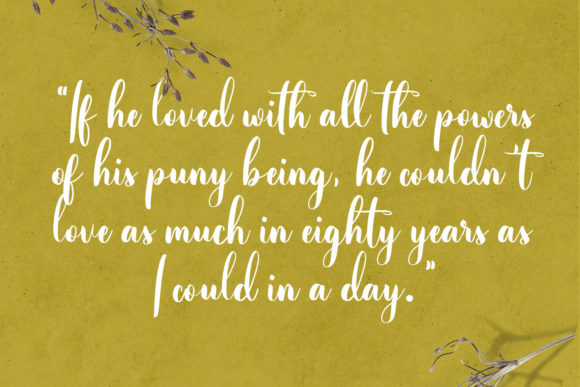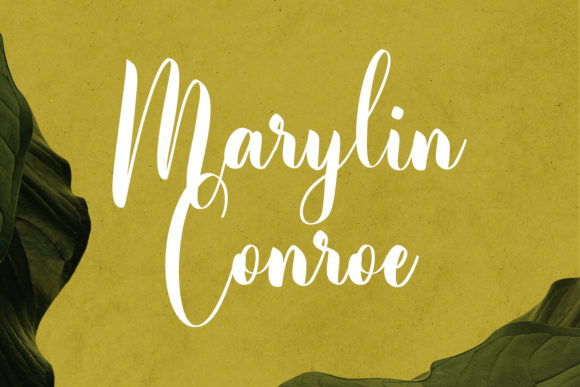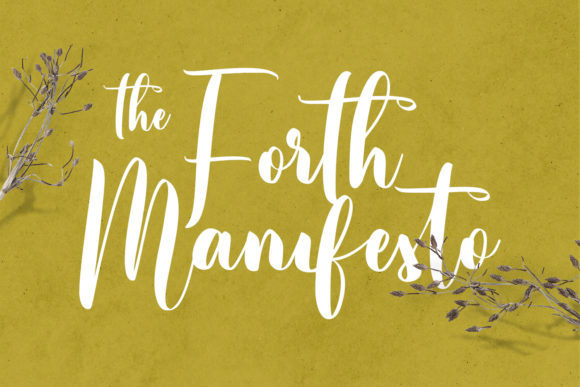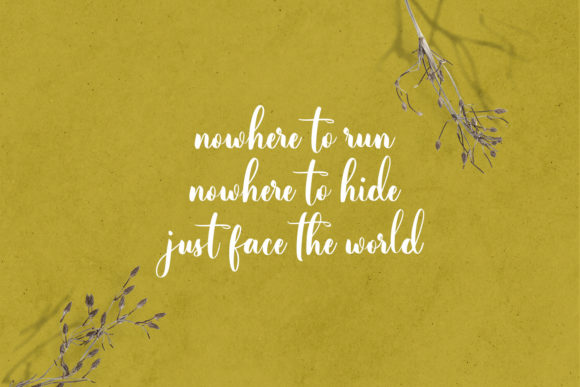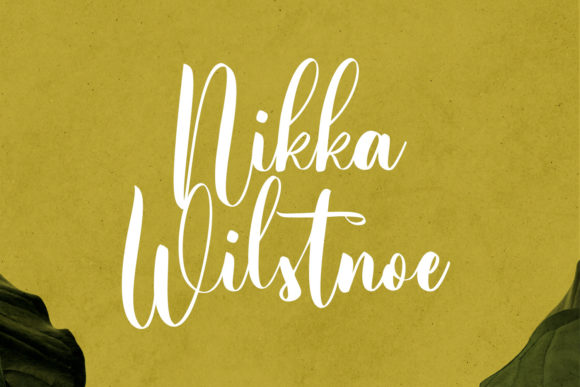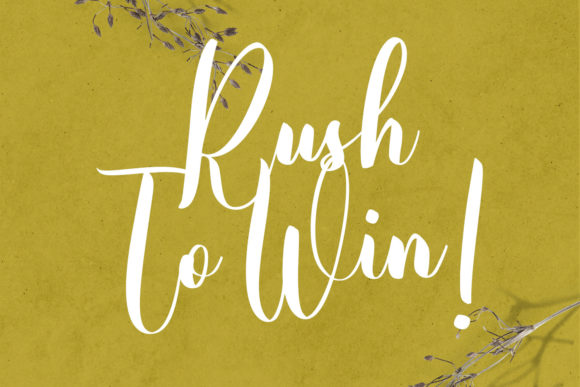
Introduction to Olly Vetta Font
Remember that moment when you finally nailed the perfect design for your creative project? The one that made all your hard work worth it and left you beaming with pride? For designers, those moments are what drive us to keep pushing the boundaries of our craft. And sometimes, all it takes is the right font to take our designs to the next level.
Enter the Olly Vetta Font, a modern script font that’s about to become your new go-to design resource. With its high contrast strokes, fun characters, and ligatures, this font is sure to add a touch of personality to any project. And the best part? You can download it for free, complete with a transparent background, making it easy to incorporate into your designs.
Whether you’re a seasoned pro or just starting out, the Olly Vetta Font is a high-quality addition to any designer’s toolkit. So why settle for a generic font when you can have a font that truly stands out? Let’s dive in and explore the world of Olly Vetta Font.
Key Features of Olly Vetta Font
- High-quality design resource perfect for creative projects, offering a unique and stylish look.
- Unique characteristics include elegant and modern typography, making it suitable for a wide range of creative projects.
- Designed to be versatile, allowing designers to use it as a primary font or as an accent font to add visual interest.
Honest Review: Olly Vetta Font
As a designer, I’m always on the lookout for high-quality design resources to elevate my creative projects. Recently, I stumbled upon the Olly Vetta Font, and I’m excited to share my honest review with you.
The Olly Vetta Font is a beautiful, elegant script font that’s perfect for adding a touch of sophistication to your designs. It’s a free download, which is always a bonus! One of the standout features of this font is its transparent background, making it incredibly versatile and easy to use.
Here are some things that work well with the Olly Vetta Font:
- ✨ Elegant script font that adds a touch of sophistication
- ✨ Transparent background for easy use
- ⚠️ Limited font styles available (only script)
- ⚠️ May not be suitable for bold, loud designs
Overall, I’m impressed with the Olly Vetta Font. It’s a great design resource that’s perfect for adding a touch of elegance to your creative projects. While it may have some limitations, it’s definitely worth checking out if you’re looking for a high-quality script font.
How to Use Olly Vetta Font
The Olly Vetta Font is a versatile design resource that can elevate your creative project to the next level. With its high-quality design and transparent background, this font is perfect for various applications.
Tips for Getting the Most Out of Olly Vetta Font
Experiment with different font sizes, colors, and combinations to create unique and eye-catching designs. Use the Olly Vetta Font for headings and titles to add a professional touch to your project.
The Olly Vetta Font is perfect for various creative projects such as logos, brochures, business cards, and social media graphics. Its high-quality design and transparent background make it an ideal choice for designers and non-designers alike.